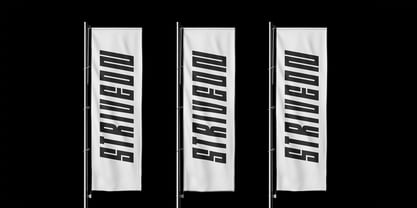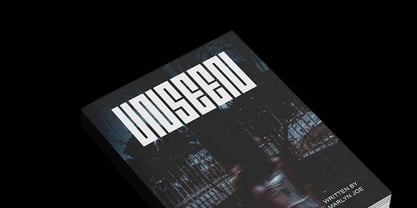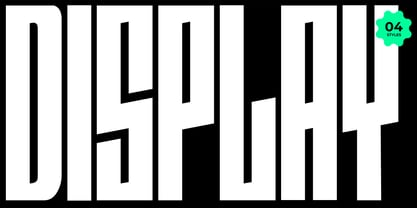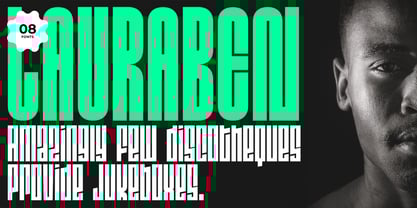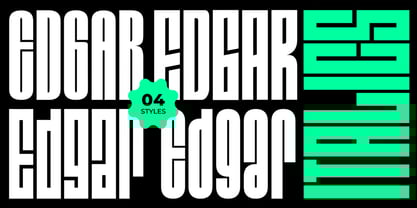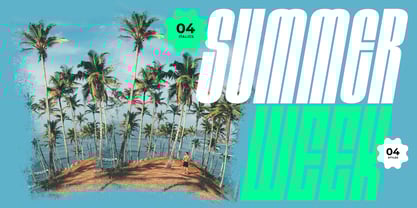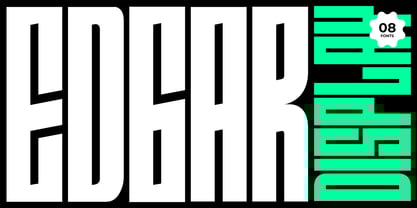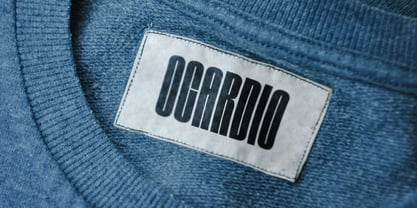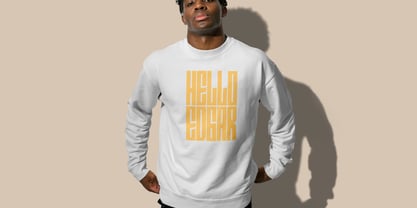
Edgar Display
The Edgar Display Font Family was designed by Alwin Johnson, Ancy George and published by Webhance. Edgar Display contains 8 styles and family package options. More about this family
The EDGAR font family is a bold and ultra-condensed display typeface crafted to deliver high visual impact in modern design. With its towering vertical form, sharp internal angles, and brutalist character, EDGAR is made to stand out across posters, branding, album covers, packaging, and digital compositions.
This family includes four distinctive styles — Cosmic, Sigma, Micah, and Normal — each bringing its own structural rhythm and tone. All styles come with matching Italics, giving you a total of 08 fonts to unlock striking typographic combinations.